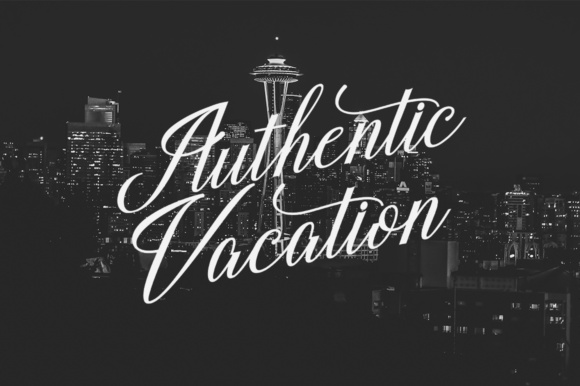
Indulge in the enchanting world of Reghinatha Script, an extraordinary font creation by Zane Studio. An artful fusion of elegance and edginess, Reghinatha will lend a touch of magic to all your creative endeavors.
With its free-flowing, modern script style, Reghinatha exudes finesse and grace. Each letter dances across the page, as if written with a quill pen by a master calligrapher. The unexpected shifts in baseline add a delightful sense of playfulness, keeping your designs visually captivating.
Whether you're designing wedding invitations, thank-you notes, logos, or business cards, Reghinatha's versatility shines through. Its inherent feminine charm makes it ideal for wedding stationery, while its modern edge adds a touch of sophistication to corporate designs.
Reghinatha's beauty goes beyond aesthetics. Its unicode support ensures cross-platform compatibility, making it accessible to a global audience. Whether you're a seasoned designer or just starting out, Reghinatha's intuitive design makes it a joy to use.
Embrace the creative possibilities of Reghinatha Script and elevate your designs to new heights. Its unique style and seamless functionality will leave a lasting impression on your audience. Make a statement with Reghinatha, and let your creativity flourish.